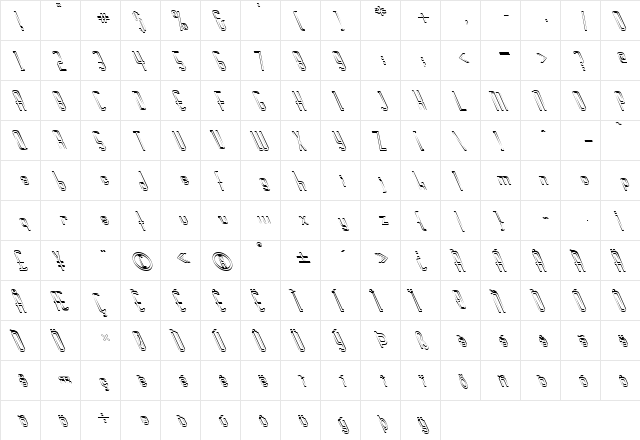
FZ BASIC 44 HOLLOW LEFTY Bold Font Preview
FZ BASIC 44 HOLLOW LEFTY Bold
Design Context for FZ BASIC 44 HOLLOW LEFTY Typeface
FZ BASIC 44 HOLLOW LEFTY is a composed and adaptable typeface that performs quietly and consistently across a wide range of design contexts. Its bold stroke weight gives it real presence on the page.